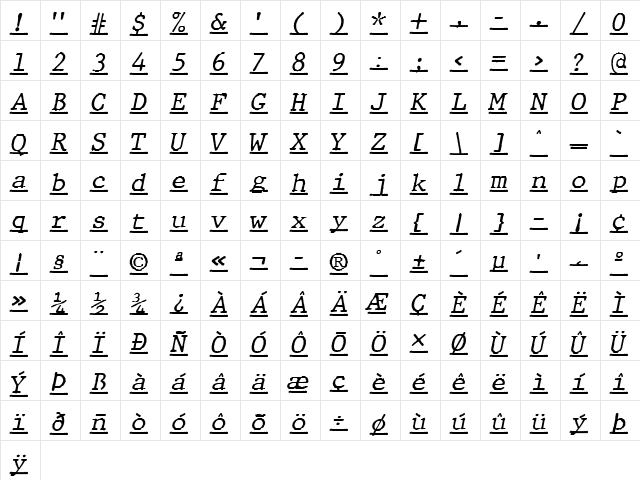
JMH Typewriter mono Under Italic Font Preview
Design Context for JMH Typewriter mono Under Typeface
JMH Typewriter mono Under uses fixed-width spacing throughout, giving it the structured, systematic character associated with coding environments and technical documentation. Its italic angle brings a sense of urgency and motion to the letterforms.
Well-suited to data-driven dashboards, coding tutorials, and any design that wants to reference the world of programming.
Pro Tip: Use JMH Typewriter mono Under with slightly increased line-height for extended reading — fixed-width spacing can feel dense in longer passages without extra breathing room.